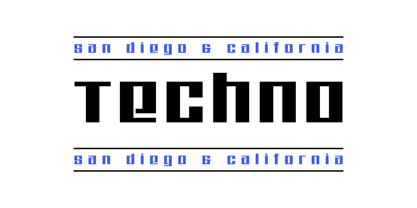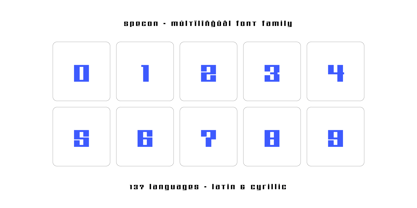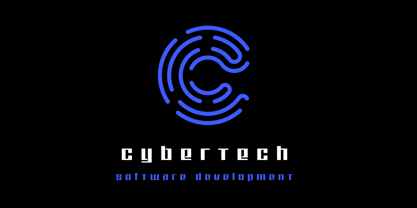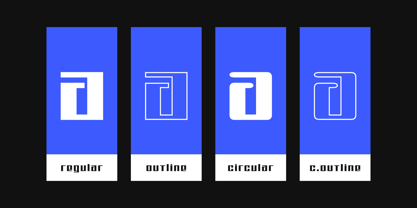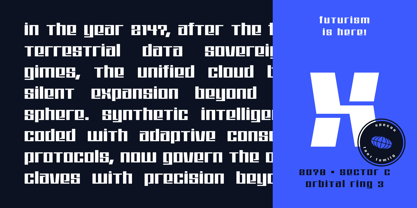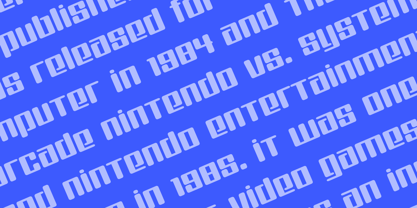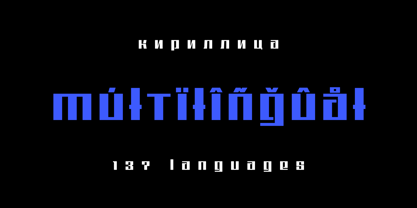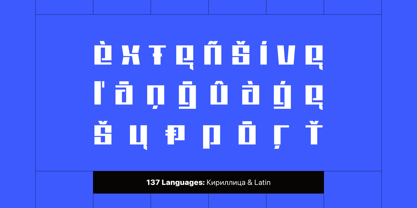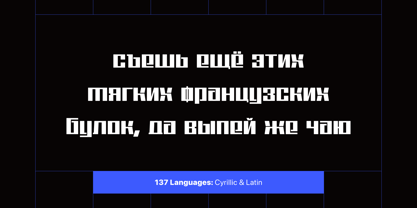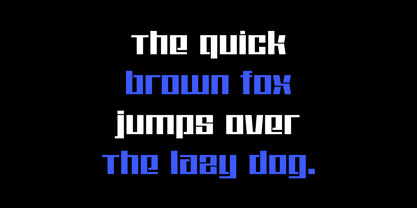
Specon
by AlperCakici
The Specon Font Family was designed by Alper Çakıcı and published by AlperCakici. Specon contains 58 styles and family package options. More about this family
🚀 Specon – The Futuristic, Sharp, Squared Typeface System Meet Specon, a forward-thinking type family designed for designers who demand impact, innovation, and versatility. Blending futuristic geometry with stencil-inspired precision, Specon offers a comprehensive library of 58 handcrafted styles—from clean technical forms to textured, eroded, rimmed, inline, brush, and rounded variations. Whether you’re crafting sleek UI, cinematic sci-fi titles, cutting-edge branding, or expressive display typography, Specon provides the tools to explore countless moods within one cohesive, sharp-edged system. ✨ Why Choose Specon? 58 Styles: Angular, Circular, Rounded, Rough, Brush, Inline, Rimmed, Pencil, Noise, Eroded, Outline & italics for every style. Futuristic + Stencil DNA: Sharp geometry and engineered cuts create a modern, technical aesthetic. Squared & Modern: Distinct squared letterforms give a clean, structured look ideal for tech and sci-fi projects. Designed for Flexibility: Perfect for tech branding, gaming, posters, motion graphics, signage, product design, and UI/UX. Smooth Performance: Optimized for clarity and consistency across print, digital, and large-scale displays. 137 Languages Supported: Extended Latin + Cyrillic coverage ensures global communication. Languages: Afrikaans • Albanian • Asu • Azerbaijani • Basque • Belarusian • Bemba • Bena • Bosnian • Breton • Bulgarian • Catalan • Cebuano • Chiga • Colognian • Cornish • Corsican • Croatian • Czech • Danish • Dutch • Embu • English • Erzya • Esperanto • Estonian • Faroese • Filipino • Finnish • French • Friulian • Galician • Ganda • German • Guarani • Gusii • Hungarian • Icelandic • Ido • Inari Sami • Indonesian • Interlingua • Interlingue • Irish • Italian • Javanese • Jju • Jola-Fonyi • Kabuverdianu • Kaingang • Kalaallisut • Kalenjin • Kamba • Kikuyu • Kinyarwanda • Kurdish • Latvian • Ligurian • Lithuanian • Lojban • Lombard • Low German • Lower Sorbian • Luo • Luxembourgish • Luyia • Machame • Makhuwa • Makhuwa-Meetto • Makonde • Malagasy • Malay • Maltese • Manx • Māori • Meru • Mohawk • Morisyen • Nheengatu • North Ndebele • Northern Sami • Northern Sotho • Norwegian Bokmål • Norwegian Nynorsk • Nyanja • Nyankole • Occitan • Oromo • Polish • Portuguese • Quechua • Rejang • Romanian • Romansh • Rombo • Rundi • Russian • Rwa • Samburu • Sango • Sangu • Sardinian • Scottish Gaelic • Sena • Shambala • Shona • Slovak • Slovenian • Soga • Somali • South Ndebele • Southern Sotho • Spanish • Sundanese • Swahili • Swati • Swedish • Swiss German • Taita • Taroko • Teso • Tsonga • Tswana • Turkish • Turkmen • Ukrainian • Upper Sorbian • Vunjo • Walloon • Walser • Welsh • Western Frisian • Wolastoqey • Wolof • Xhosa • Zhuang • Zulu
Designers: Alper Çakıcı
Foundry: AlperCakici